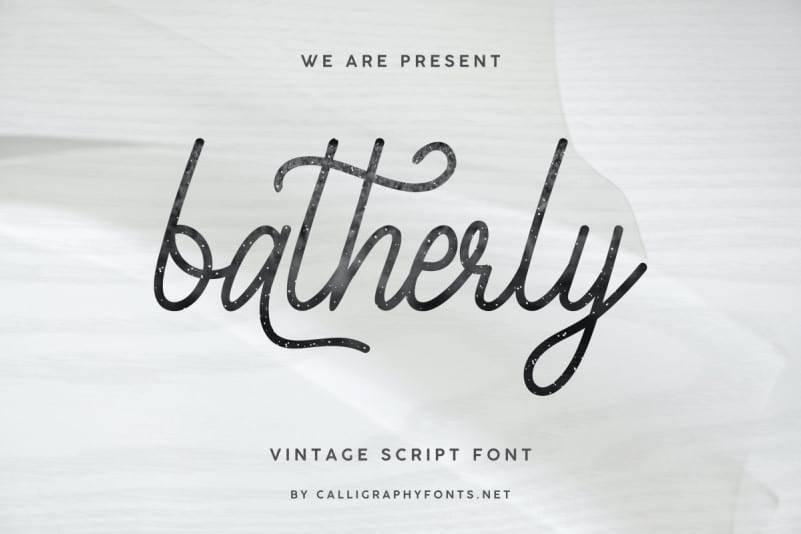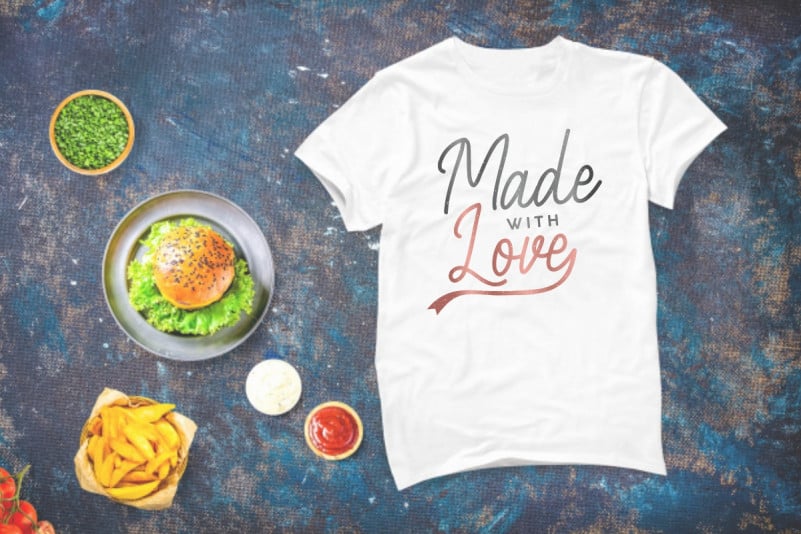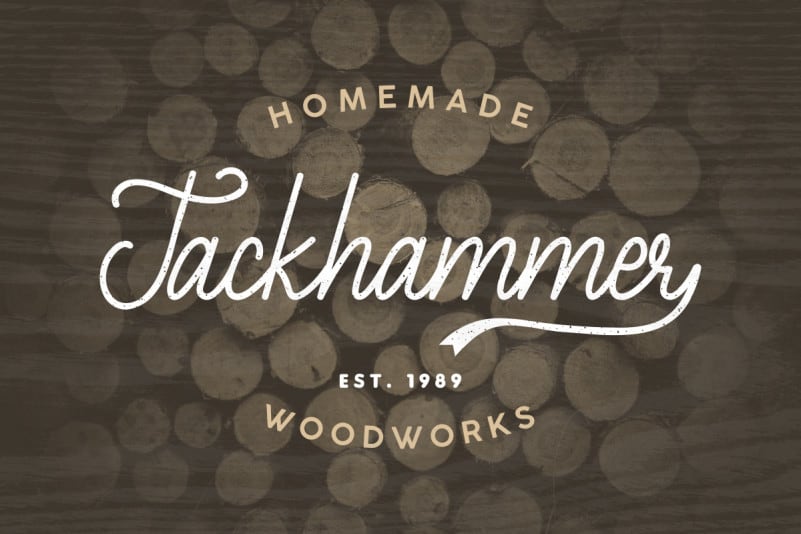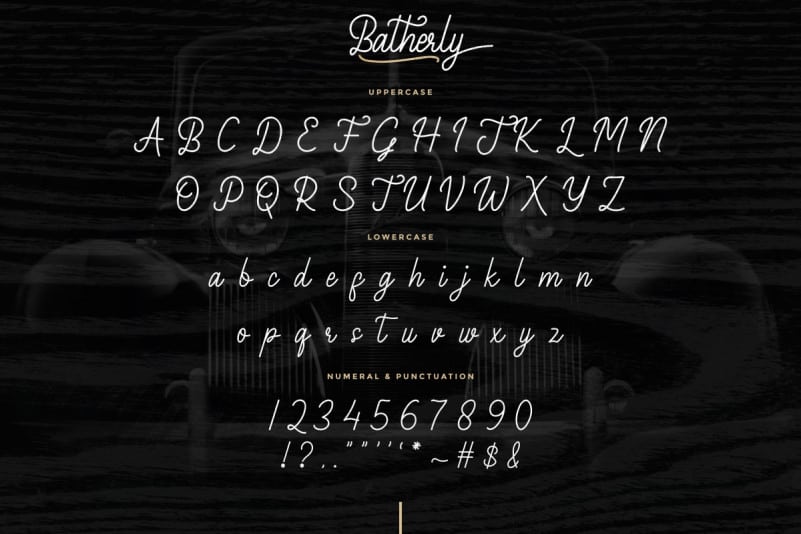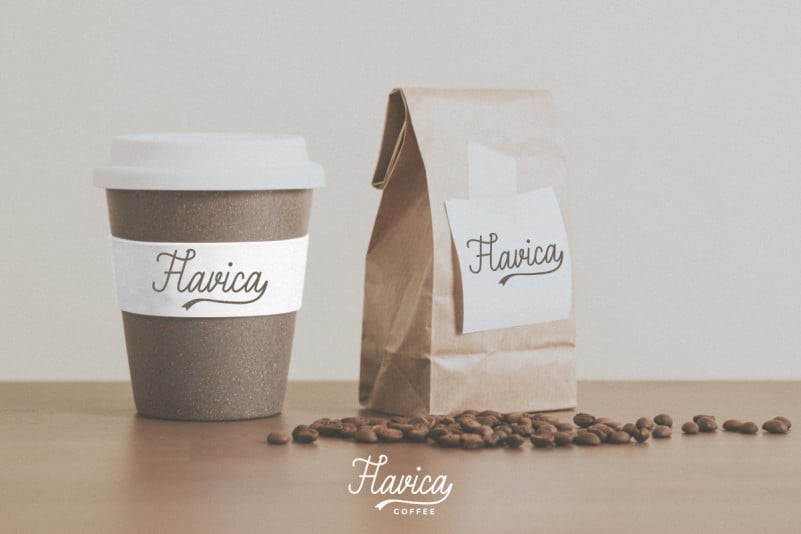
Batherly Handwriting Script Font
Batherly Handwriting Script Font is a Handwriting script typeface. The style of this font are rough, textured, elegant, luxury and classic pen writing font.